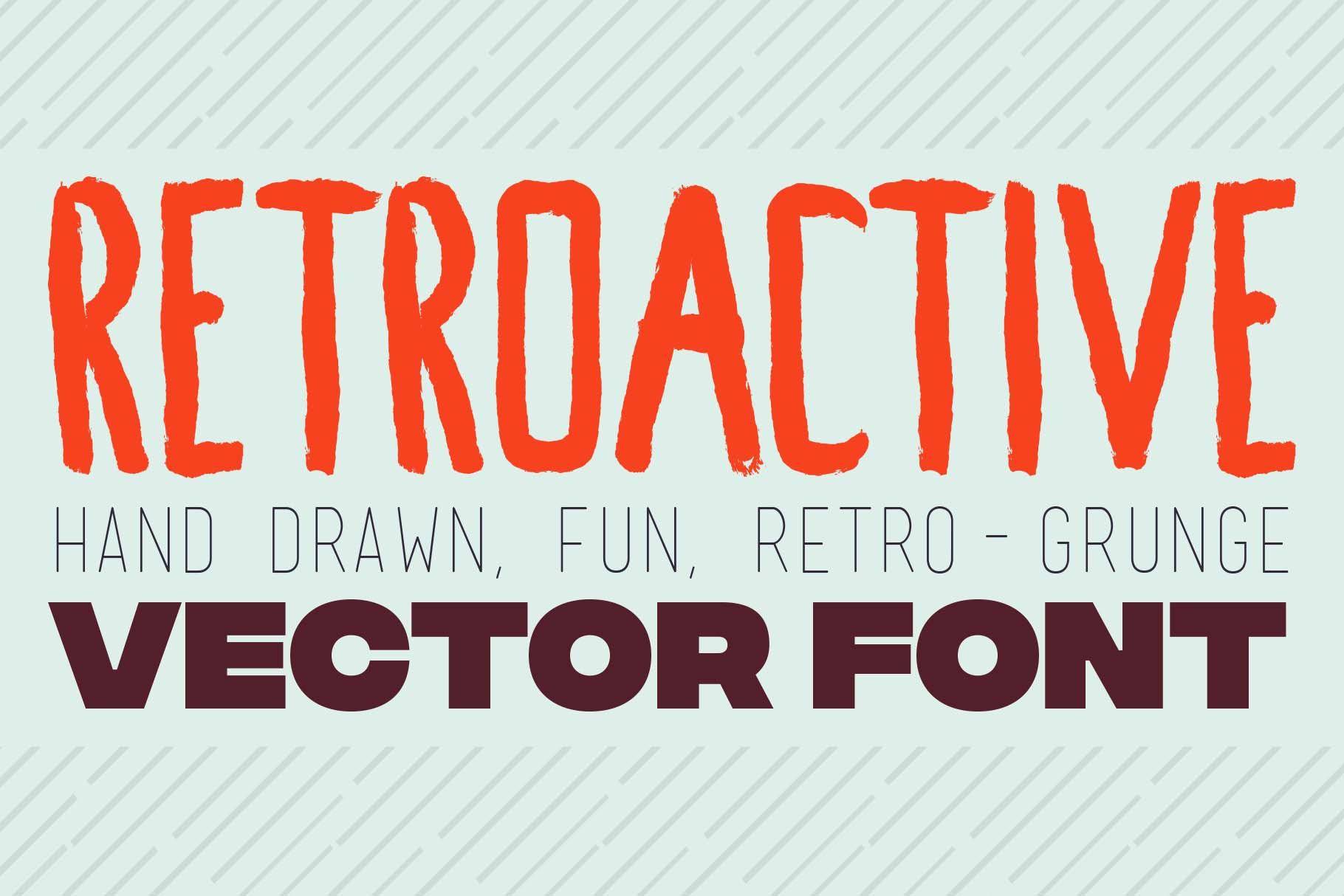
Retroactive Fun Vector Font
Retroactive is a playful, vintage grunge style font with endless possibilities. Great for display or call out text. Goes well will other bold and light fonts.